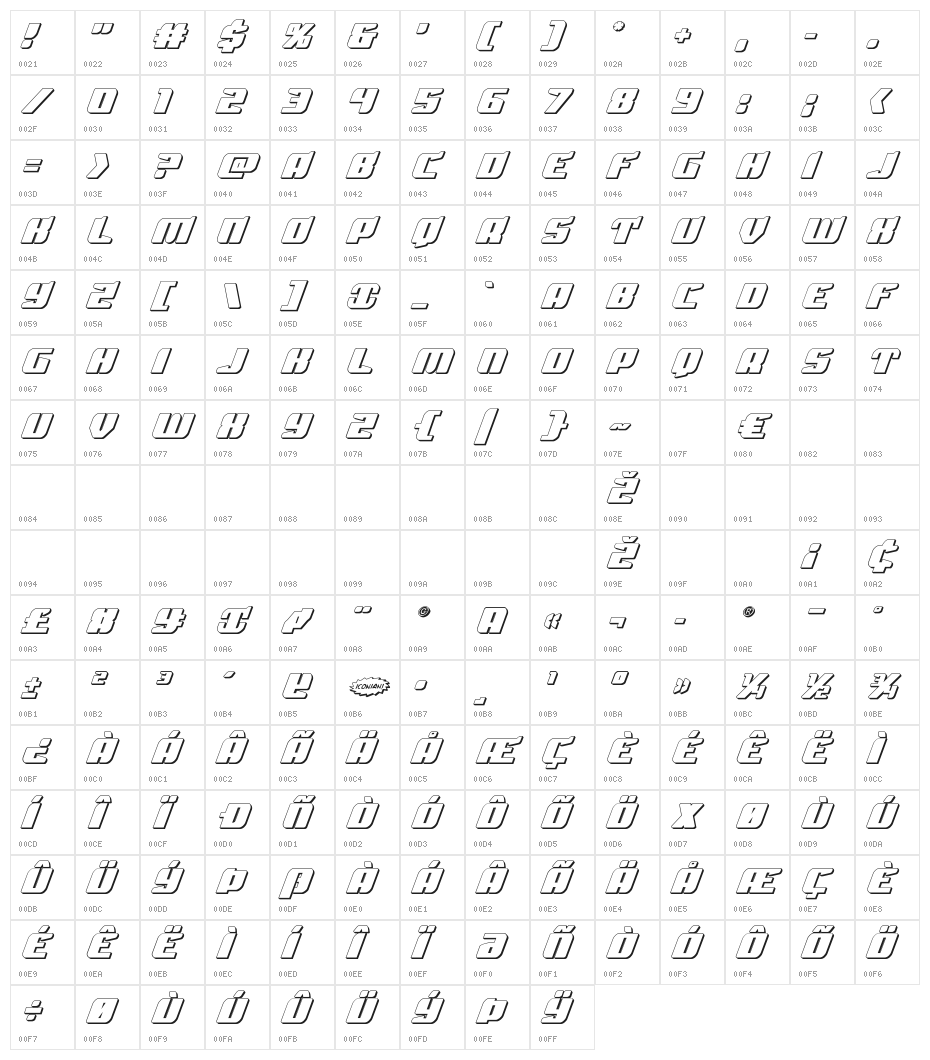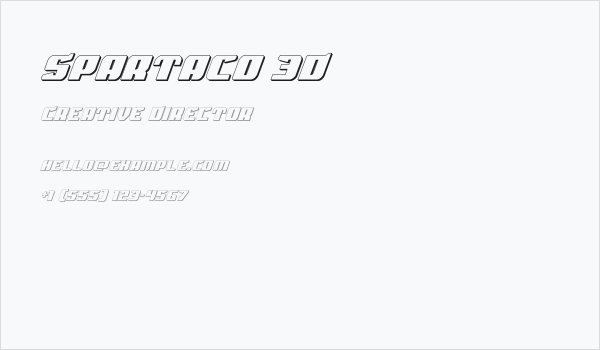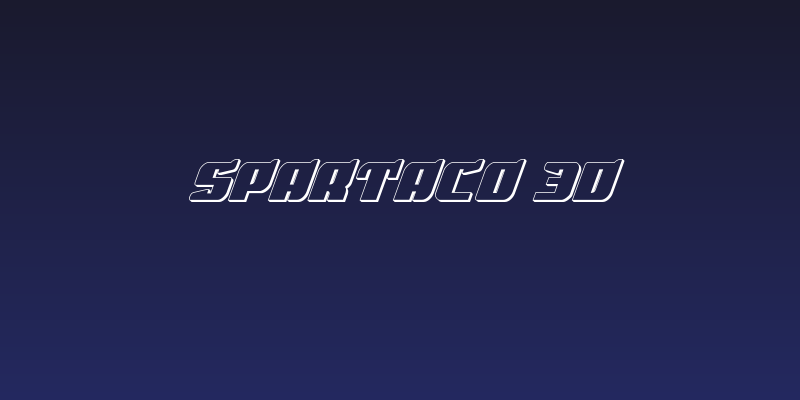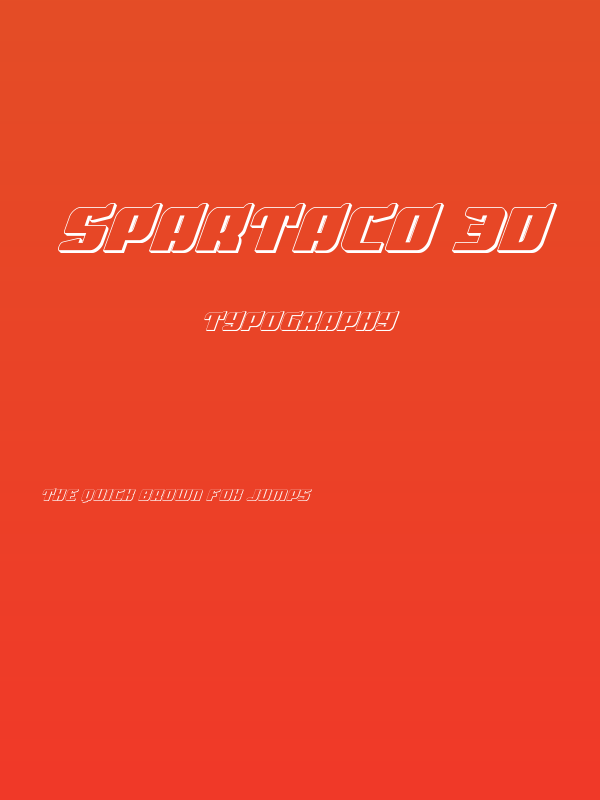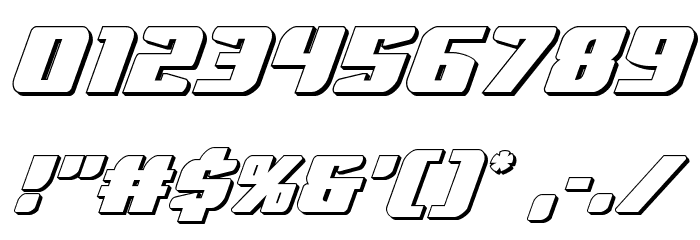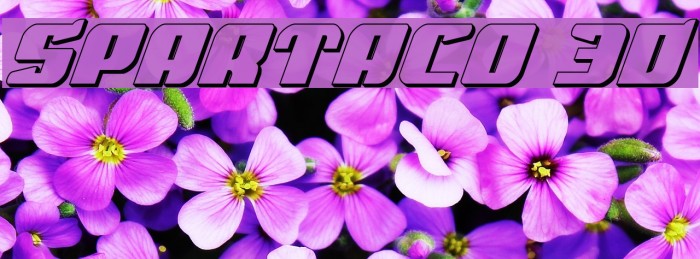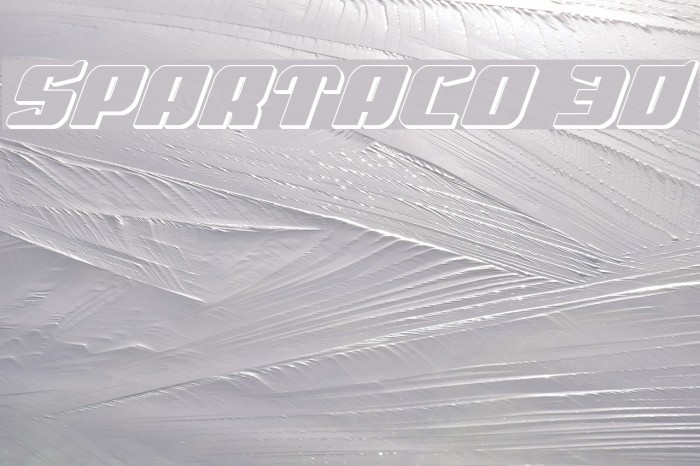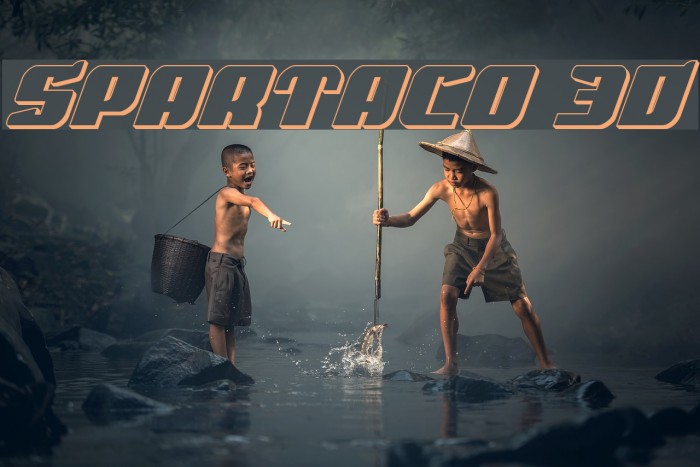
Spartaco 3D Font
Spartaco 3D Description
This font features a bold, three-dimensional style with a strong presence. The characters are designed with a shadow effect that gives them a lifted appearance, creating a sense of depth and dynamism. The edges are sharp and angular, contributing to a futuristic and modern aesthetic. The font maintains a consistent weight throughout, with each letter and number exhibiting a uniform thickness. The spacing between characters is tight, enhancing the compact and cohesive look. This font is ideal for projects that require a striking and impactful visual element.
| Proposed Projects | Ideal for logos, headlines, posters, and any design needing a bold, futuristic look. |